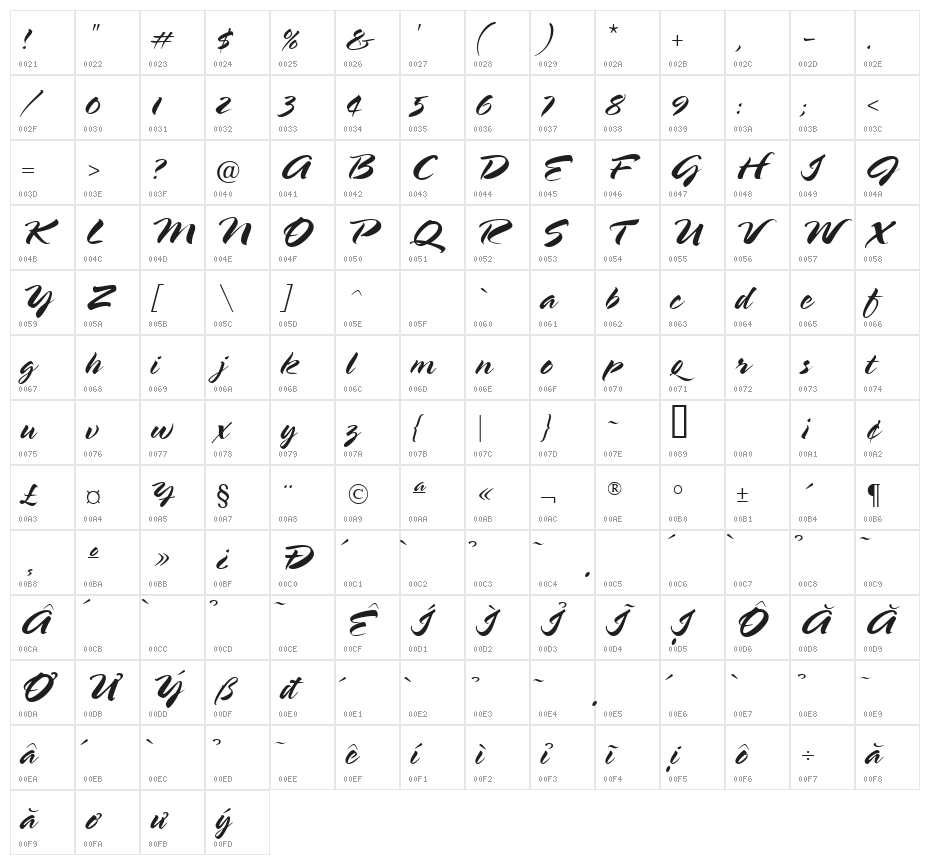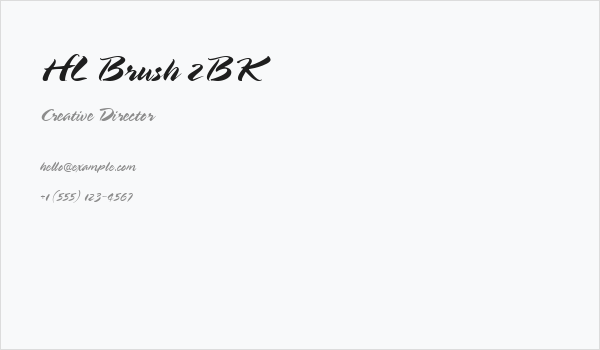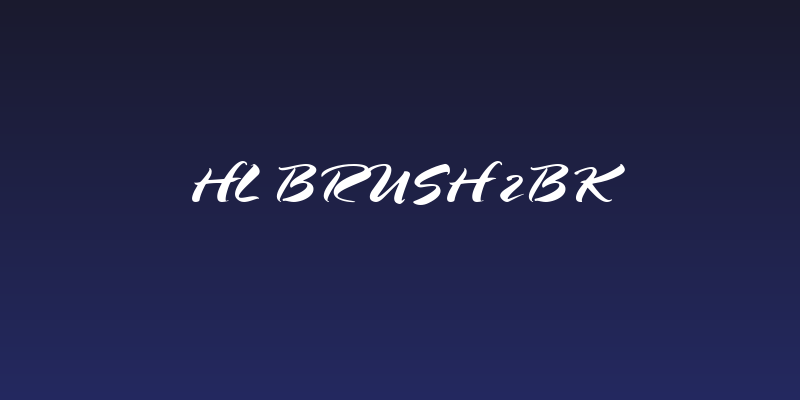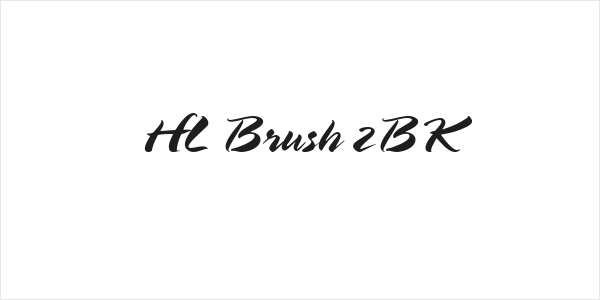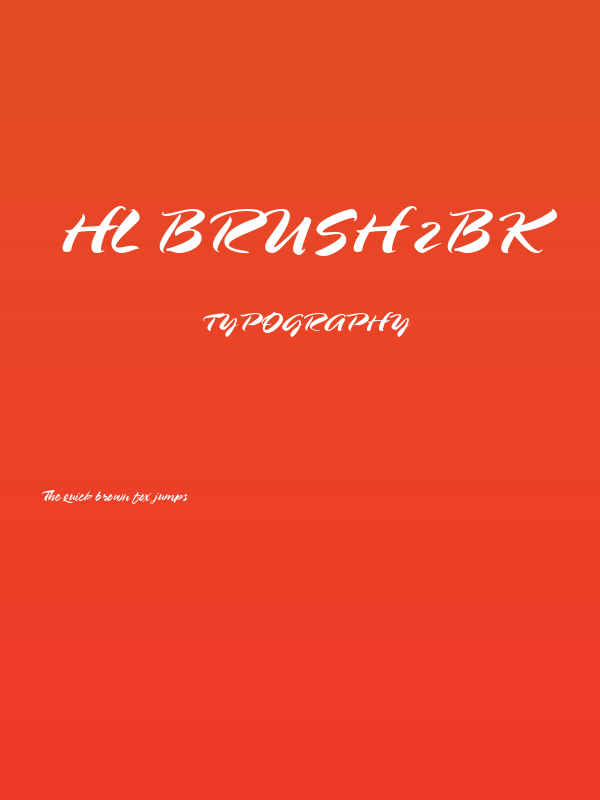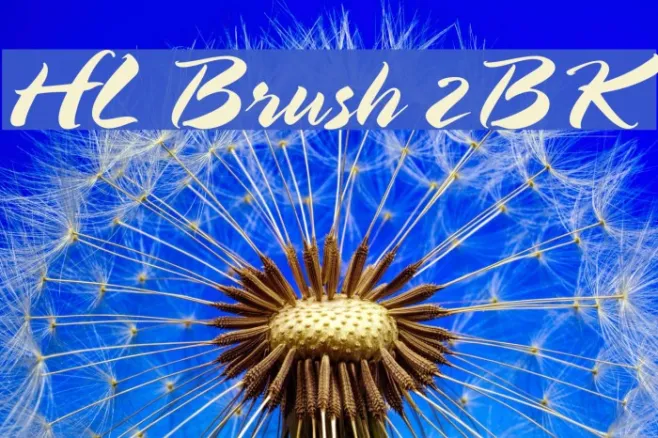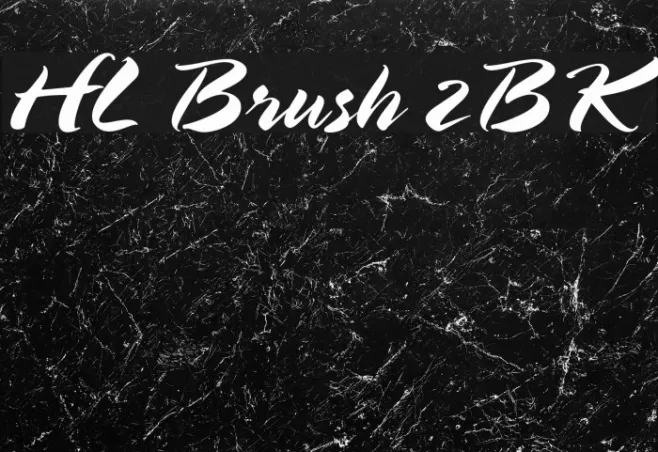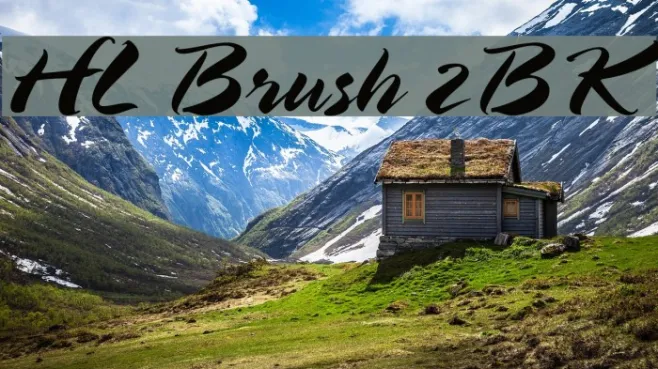
HL Brush 2BK Font
HL Brush 2BK Description
This font features a dynamic and expressive brush script style, characterized by its fluid and bold strokes. The letters have a natural, hand-drawn appearance, with varying thickness that adds a sense of movement and energy. The uppercase and lowercase letters are well-balanced, maintaining a consistent flow throughout. The numerals and special characters are crafted with the same attention to detail, ensuring a cohesive look. This font is ideal for projects that require a personal touch, such as invitations, branding, and artistic designs.
| Use Case | Logos, Headlines, Artistic designs |
| Proposed Projects | Ideal for invitations, branding, artistic designs, and any project needing a personal touch. |